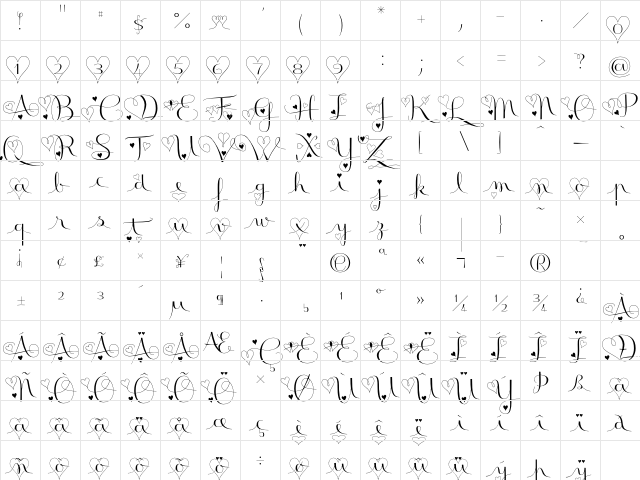
Badinerie Love Black
Design Context for Badinerie Love Typeface
Badinerie Love is a composed and adaptable typeface that performs quietly and consistently across a wide range of design contexts.